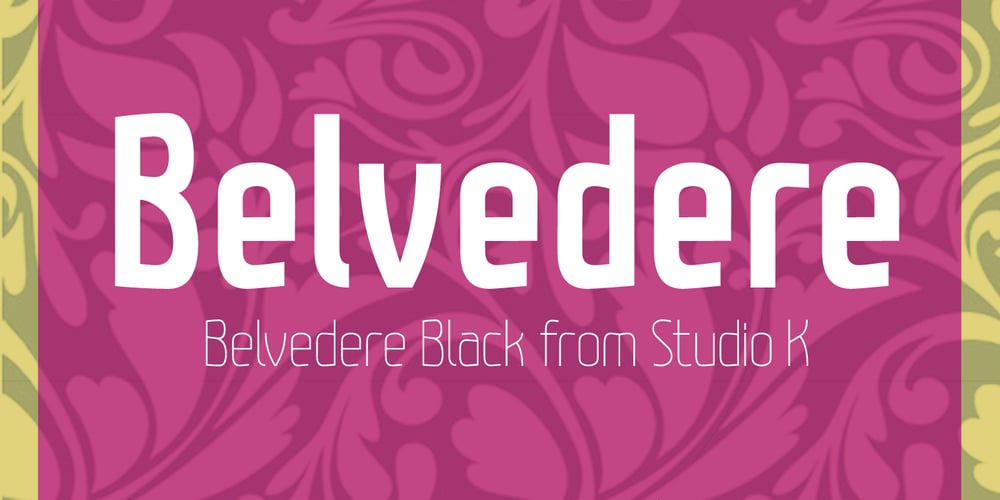
Belvedere
Belvedere font
Belvedere Font Family was designed by Keith Tricker and published by Studio K. Belvedere contains 8 styles and family package options. Belvedere is an Italian word that translates as ‘beautiful outlook’ and describes a pavillion or summer house on high ground with commanding views. It has grace, style and a touch of class, all of which I’ve tried to incorporate in this font family. The snazzy graphics are by my friend and colleague Dan Austin.